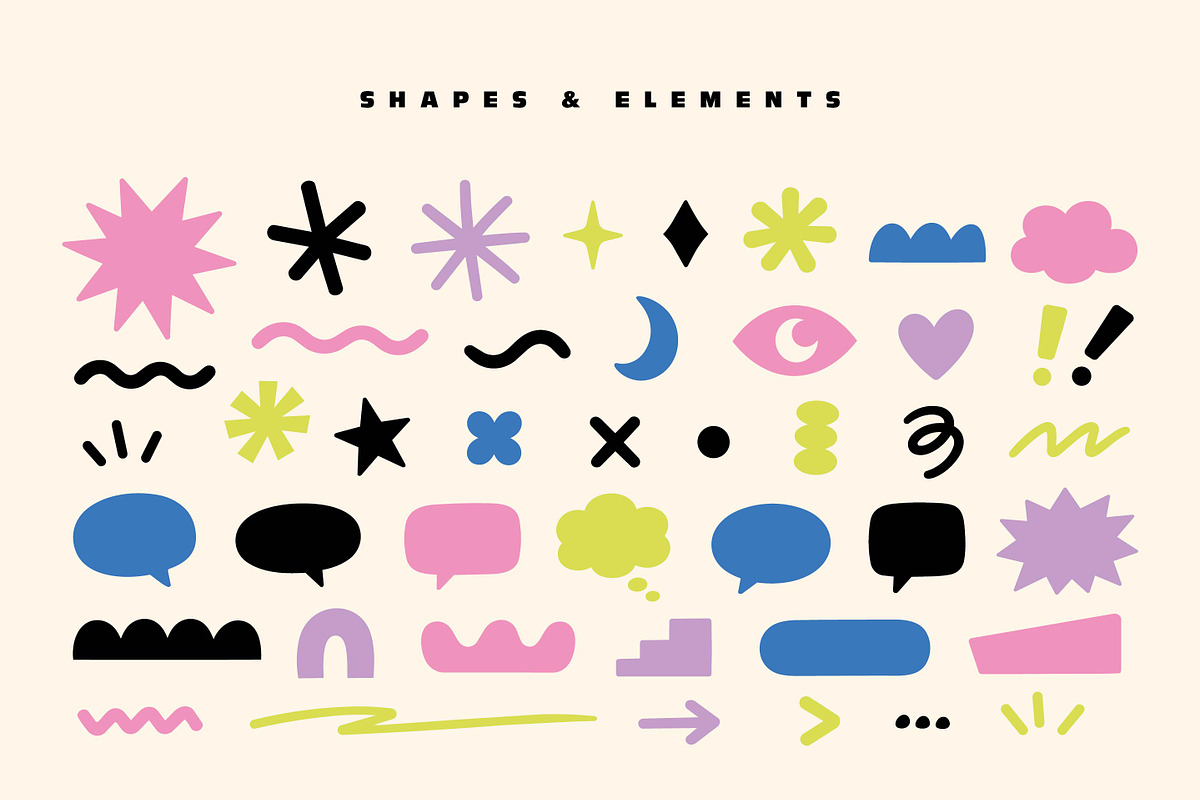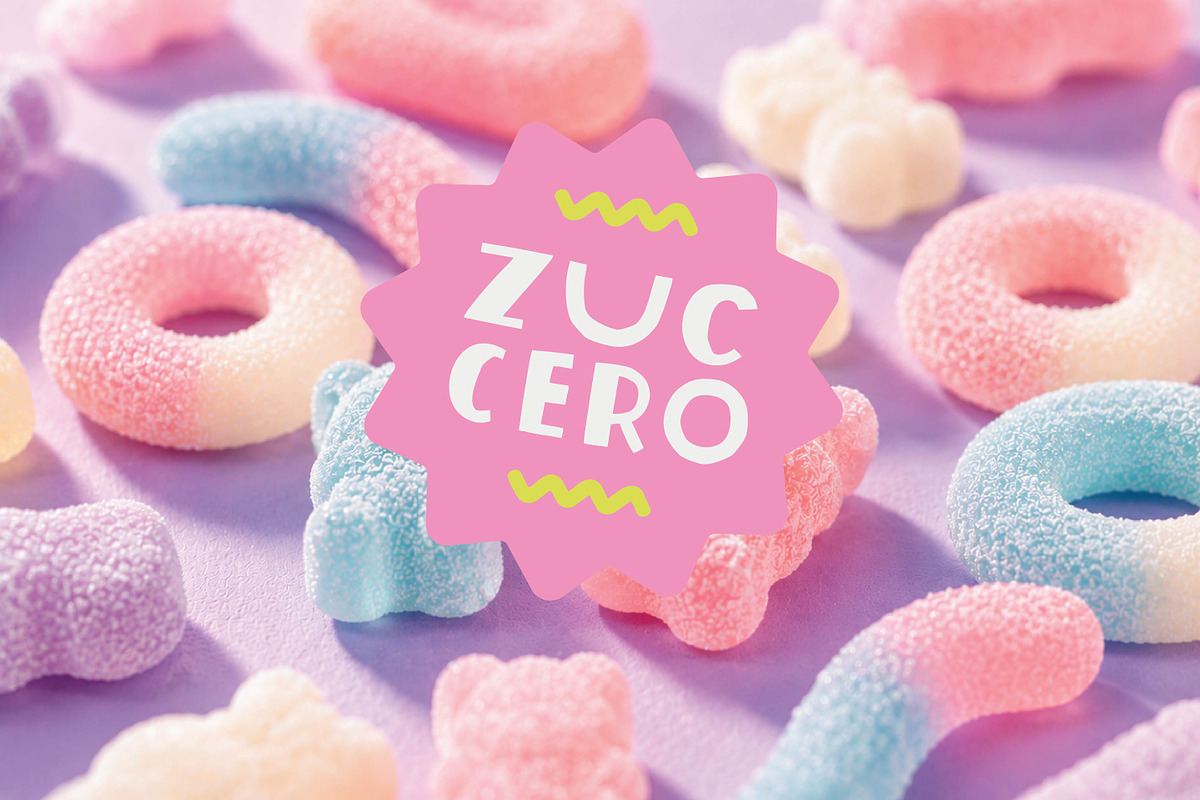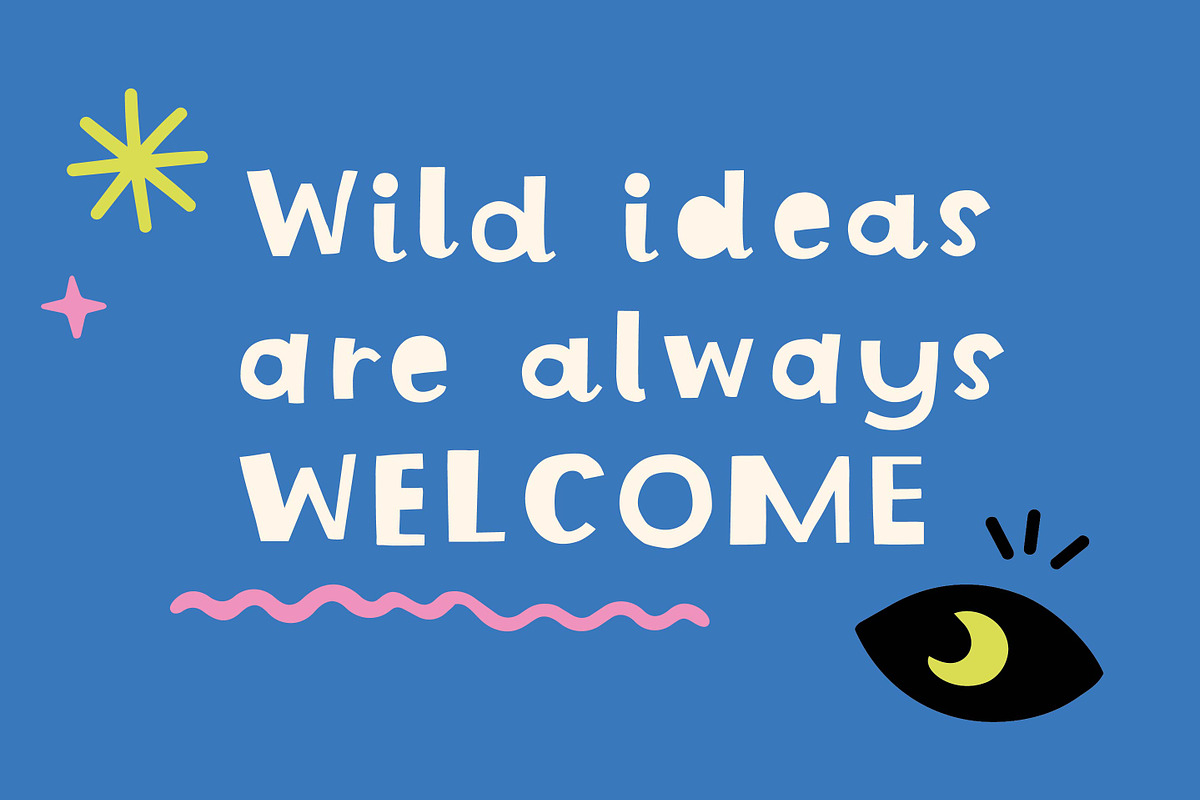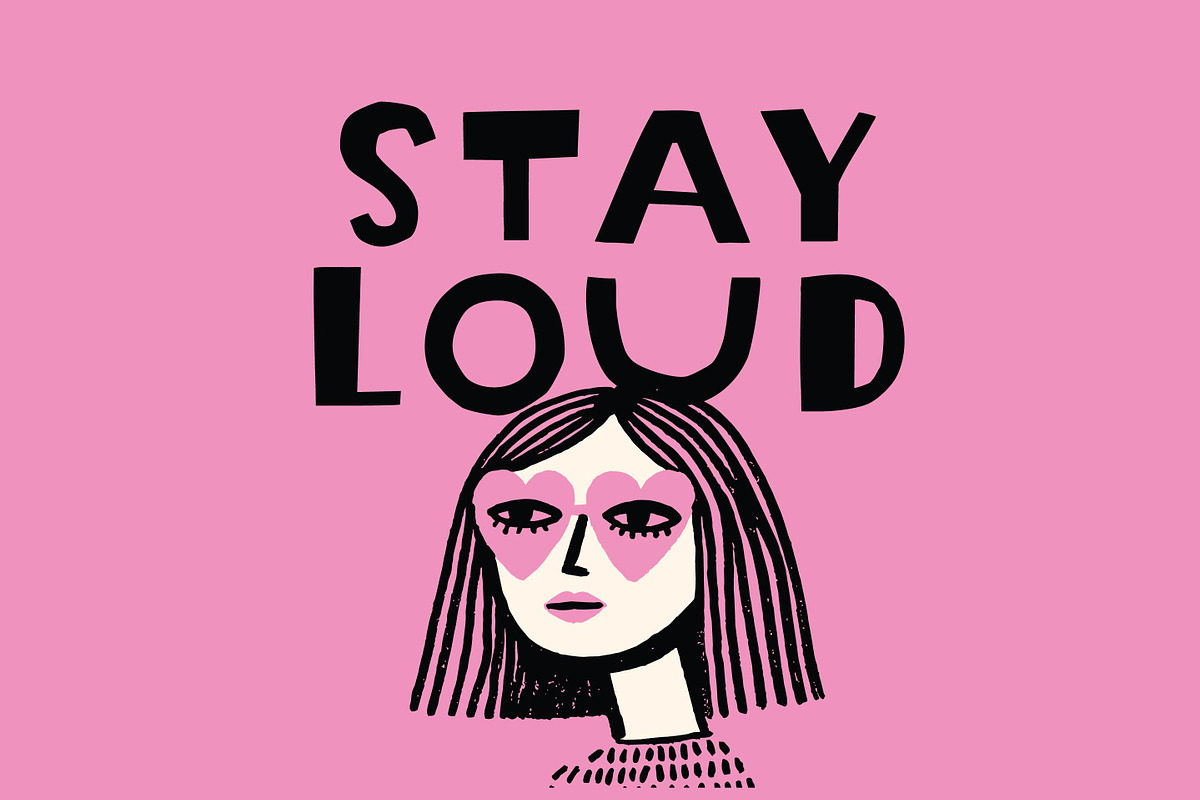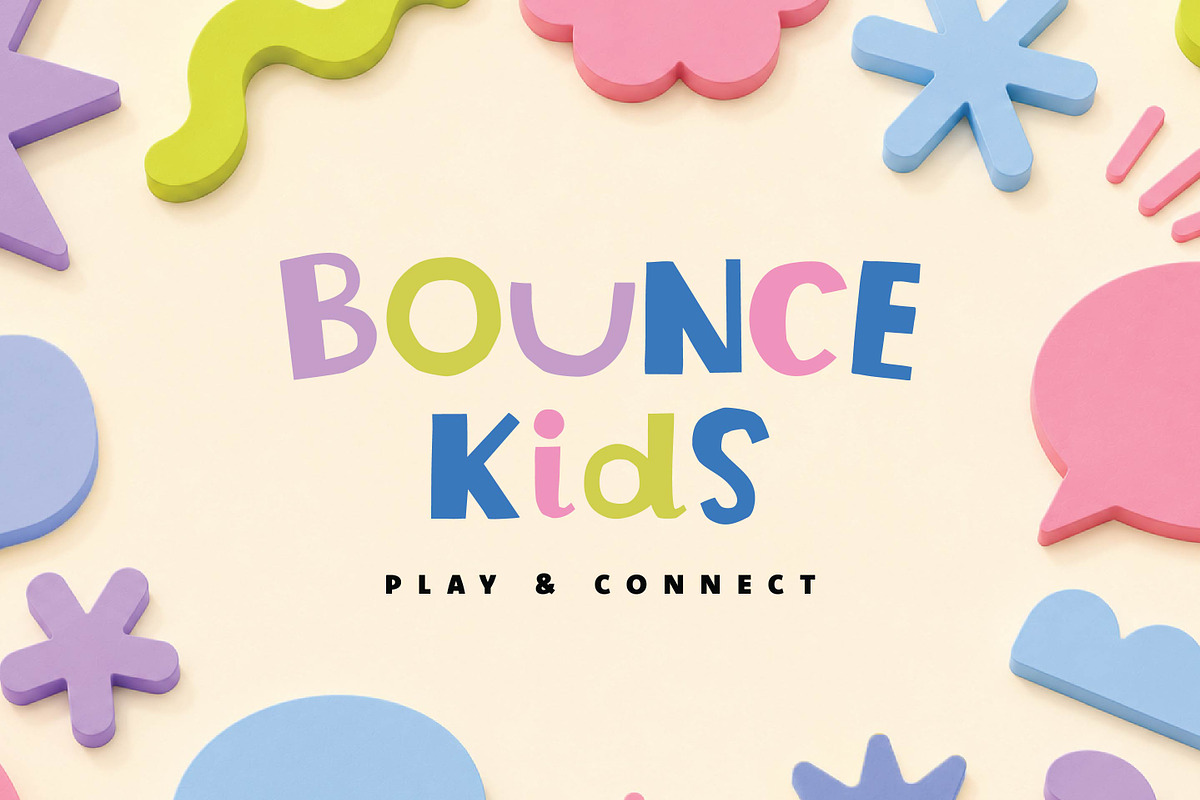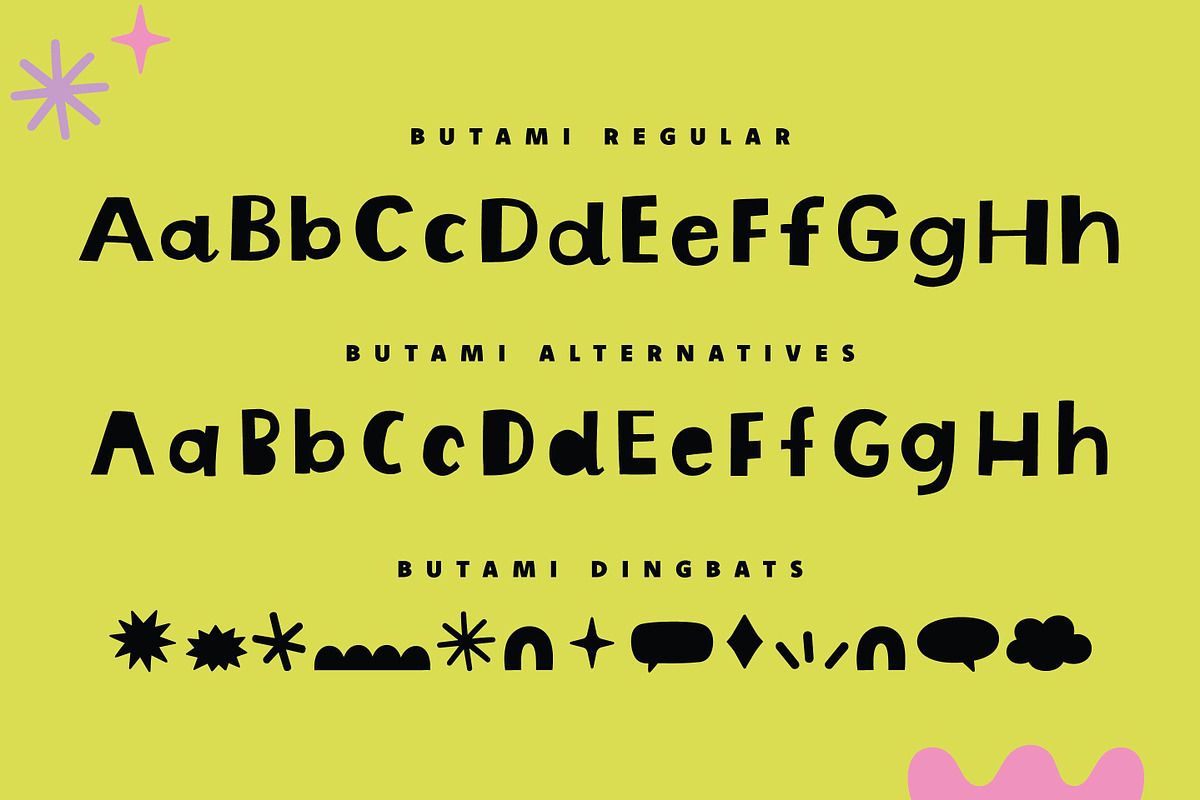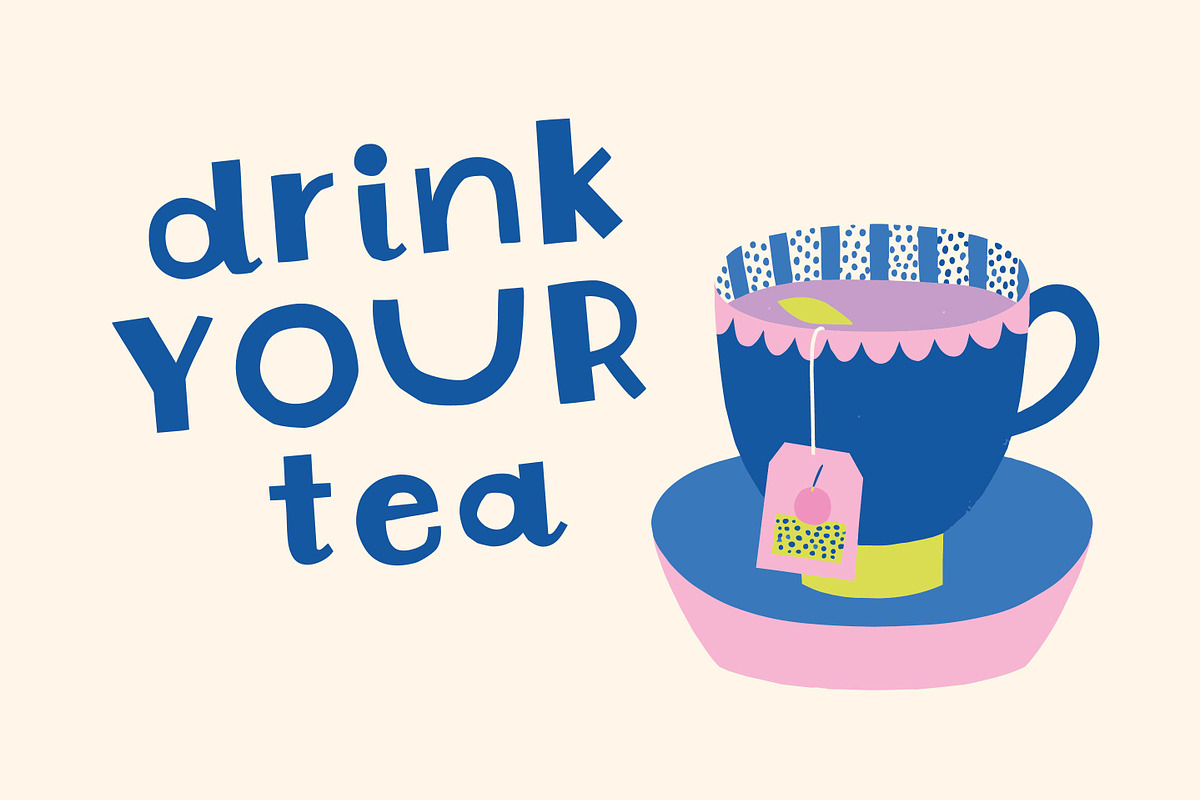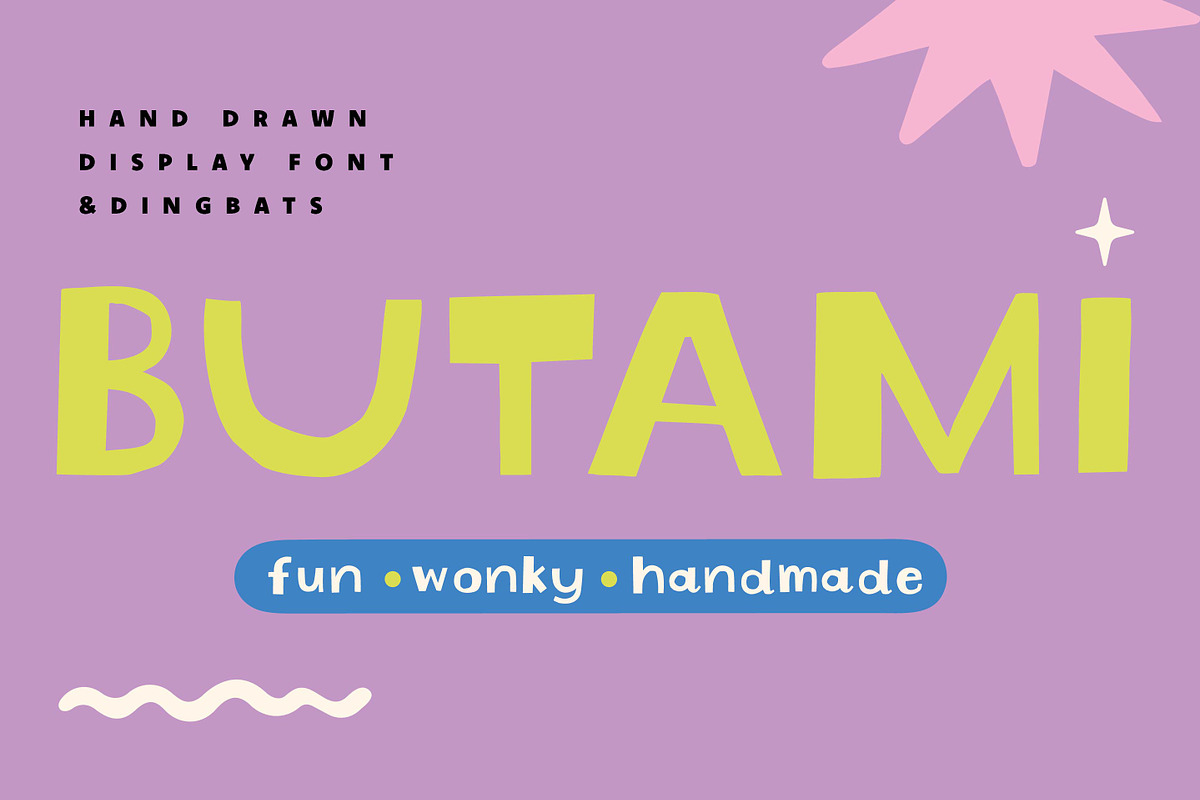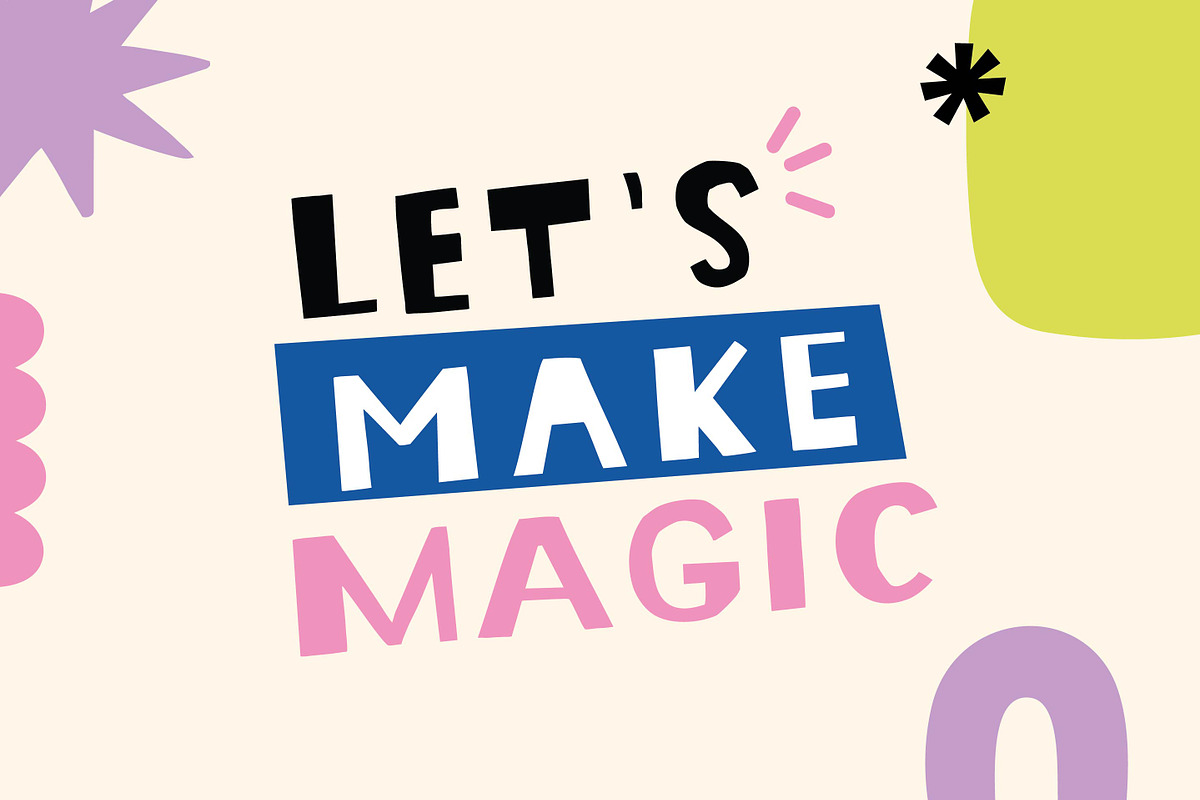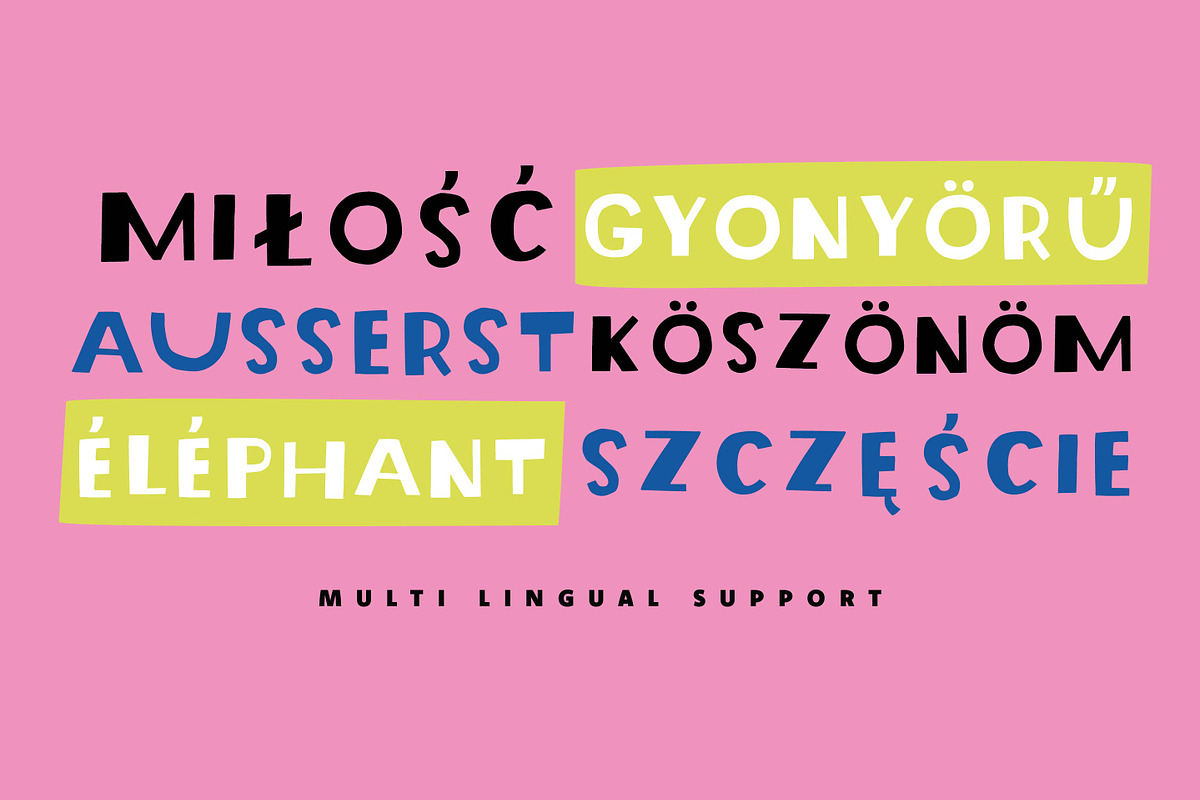
Butami | Quirky Font Family
Butami is a playful hand-drawn display font inspired by cut-paper shapes, children's illustrations and colorful packaging.
Featuring charming irregular letterforms, multilingual support, alternate characters and a bonus collection of fun dingbats, Wonky is perfect for branding, packaging, posters, social media, book covers and kids products.
Friendly, creative and full of personality — Wonky turns everyday words into playful visual statements.
Butami Regular The main font style with playful hand-drawn letterforms.
Butami Alternatives A set of alternate characters that allow you to create more organic, custom-looking typography.
Butami Dingbats A bonus collection of hand-drawn shapes, speech bubbles, stars, clouds, squiggles and decorative elements designed to perfectly complement the font.
Butami includes multilingual support for a wide range of Latin-based languages.